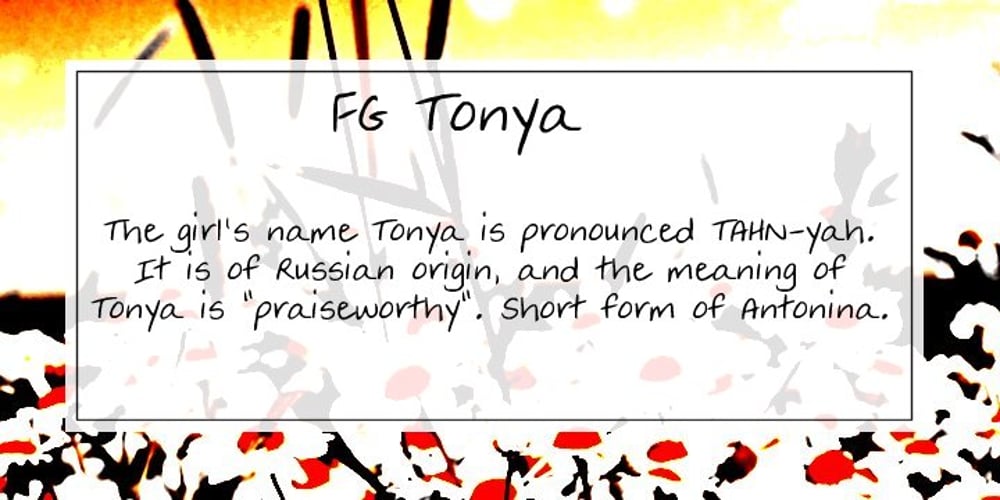
FG Tonya
FG Tonya font
FG Tonya Font Family was designed by Ellinor Maria Rapp and published by YOFF. FG Tonya contains 1 styles and family package options. Here you have FG Tonya who’s a social, charmingly writing female.